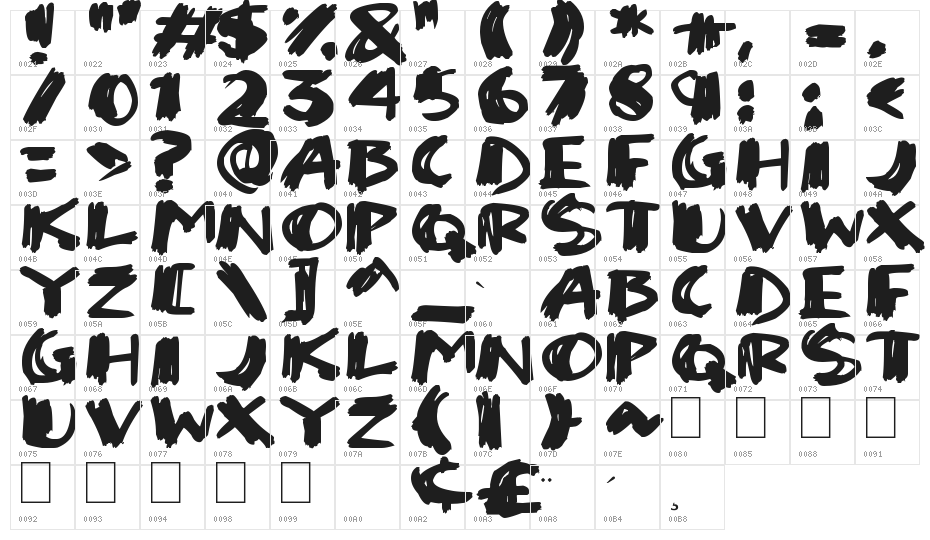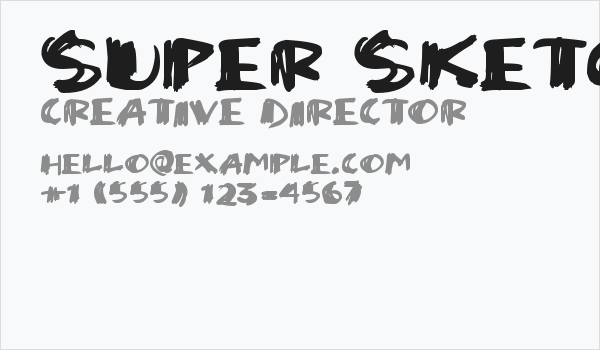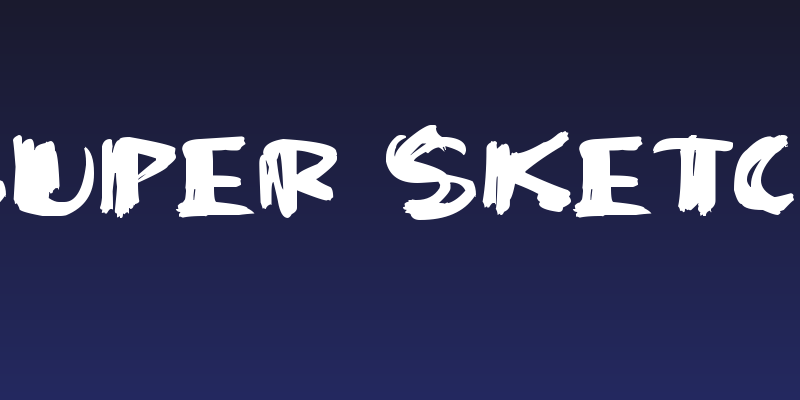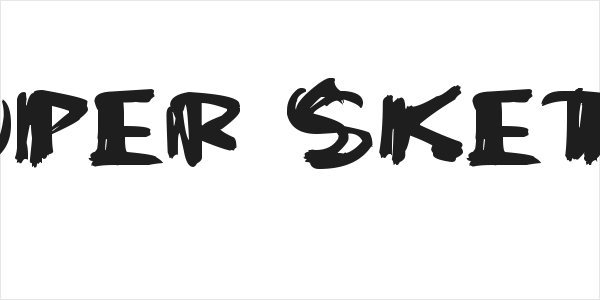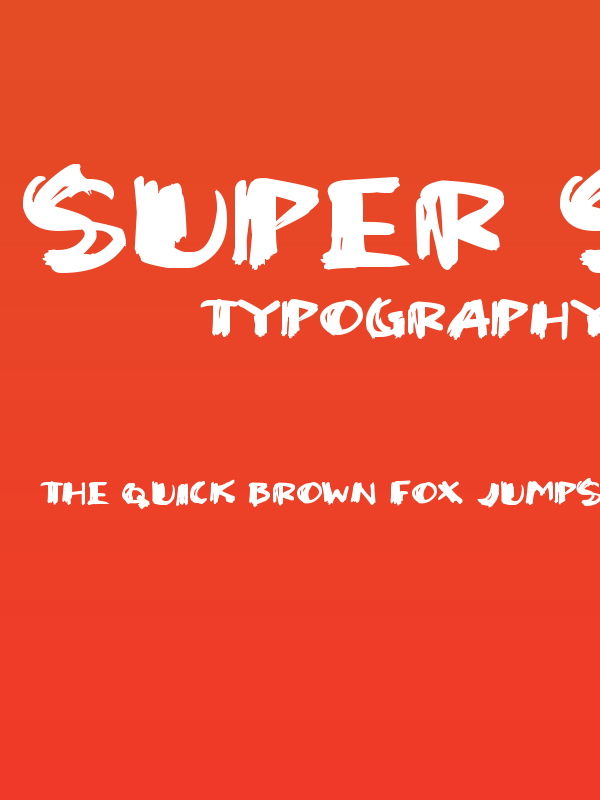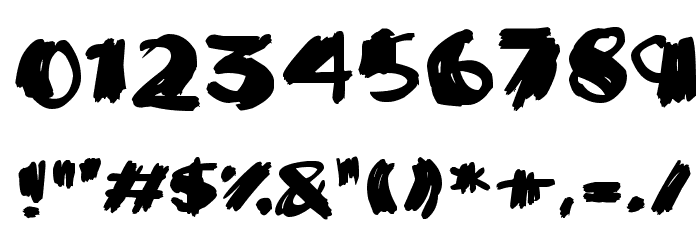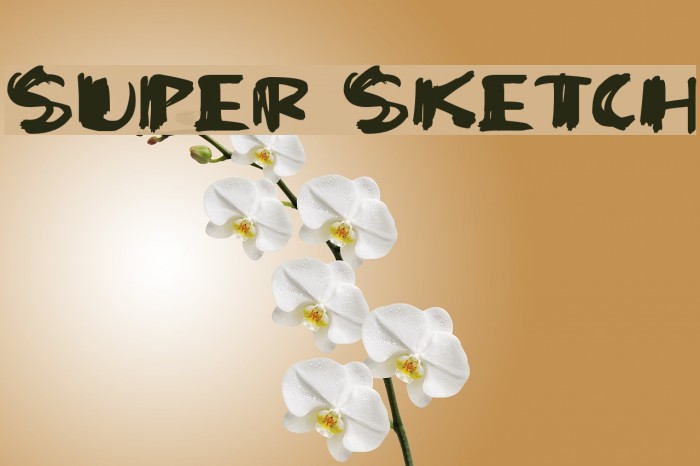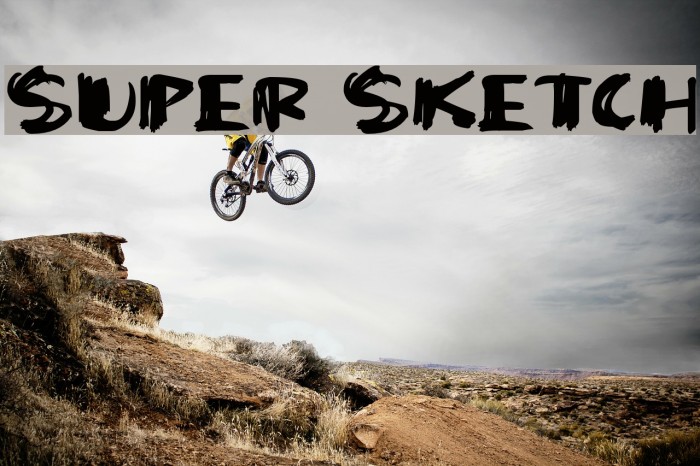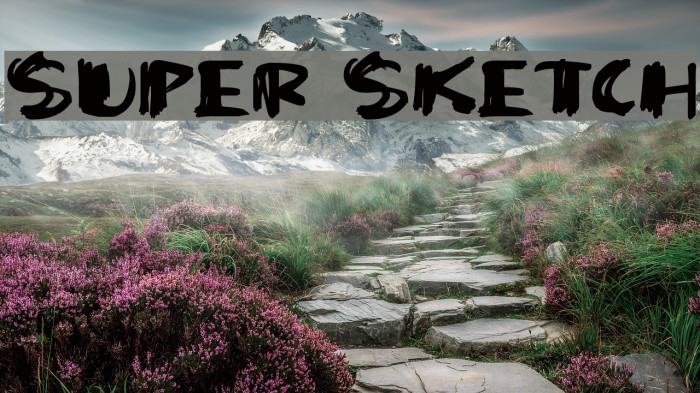
Super Sketch Font
Super Sketch Description
This font features a bold, expressive style with a hand-drawn appearance. The characters are crafted with thick, uneven strokes that give a dynamic and energetic feel. Each letter and number exhibits a unique, sketch-like quality, reminiscent of brush strokes or graffiti art. The font maintains a consistent boldness throughout, with slightly irregular edges that add to its artistic charm. The special characters are equally bold and maintain the same sketchy aesthetic, making them stand out. This font is ideal for projects that require a strong visual impact and a creative, informal touch.
| Proposed Projects | Ideal for posters, album covers, street art designs, and creative branding projects. |